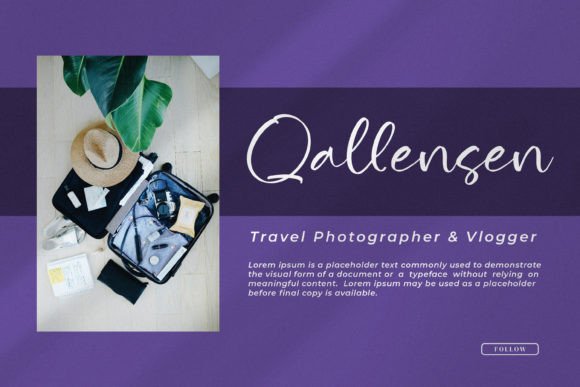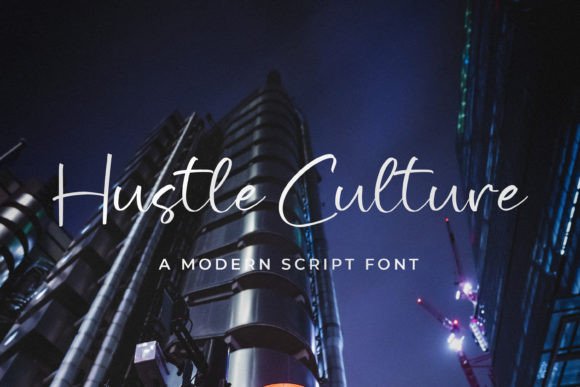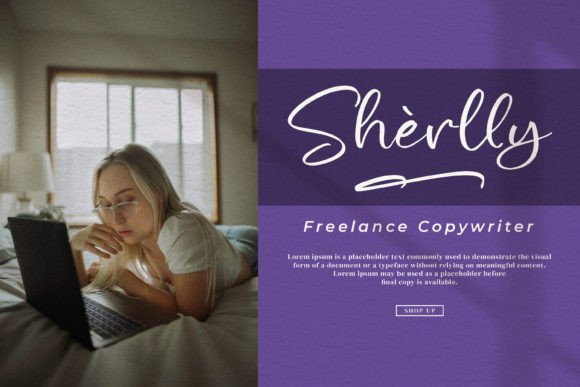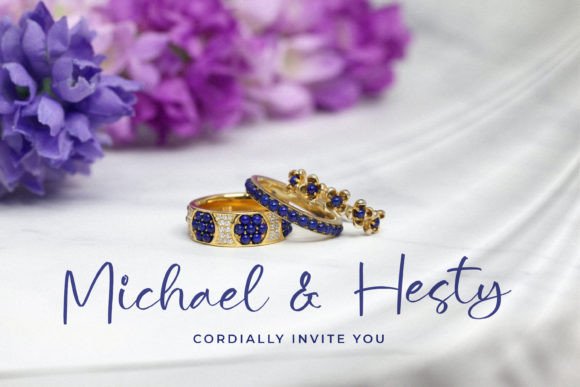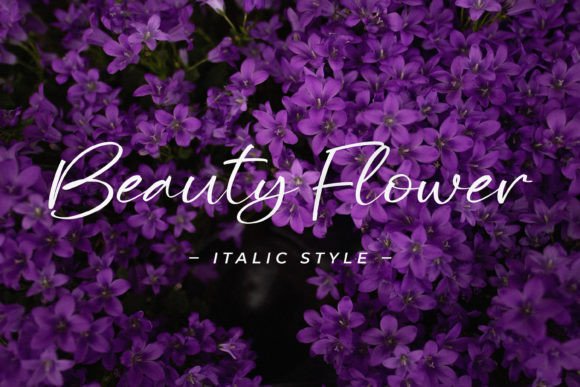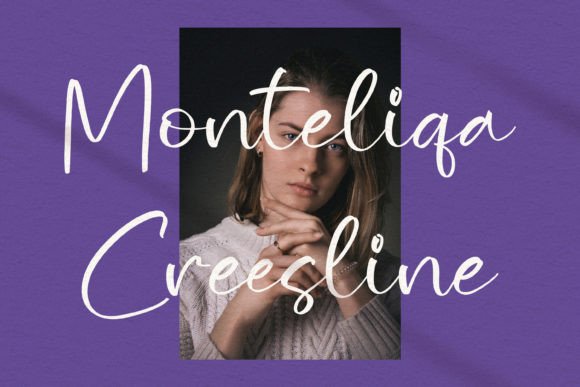
Discover the Magic of Carenbella Font
Have you ever found yourself staring at a blank page, searching for the perfect font to bring your creative vision to life? The moment when everything clicks, and the right words flow effortlessly onto the page, is one of the most exhilarating experiences for designers. It’s the spark that ignites a new project, and Carenbella Font is here to ignite that spark.
Carenbella Font is a meticulously crafted script font, designed to elevate any creation to new heights. Whether you’re working on a romantic wedding invitation, a beautiful book cover, or a stunning social media post, this font has the potential to take your design to the next level. With its intricate details and elegant flair, Carenbella Font is a valuable addition to any designer’s library, waiting to be unleashed and bring your creative ideas to life.
Carenbella Font Key Features
- Font Type: Script, Handwritten
- Font Size: 4 styles available: 600, 700, 800, 900
- Resolution: Optimized for screen display, suitable for digital use
- Unique Characteristics: Distinctive handwritten feel, elegant and refined appearance, perfect for creative and decorative purposes
- Language Support: Latin-based languages, including English, Spanish, French, and many others
Carenbella Font Review
I recently had the chance to work with the Carenbella font, and I must say it’s a unique and interesting addition to any design project. ✨ The font’s cursive style is perfect for creating a sense of elegance and sophistication, making it ideal for weddings, invitations, and other special occasions.
- The Carenbella font is highly customizable, allowing you to adjust the size, color, and spacing to fit your design needs.
- The font’s cursive style is also great for creating a sense of movement and flow, which can be particularly effective in headings and titles.
- Overall, the Carenbella font is a solid choice for designers looking for a unique and eye-catching font.
However, there are some limitations to keep in mind. ⚠️ The font’s cursive style can be difficult to read at small font sizes, and the letterforms can be quite ornate, which may make it challenging to use for body text.
Overall, I would give the Carenbella font 4 out of 5 stars. While it’s not the most versatile font, it’s perfect for specific design projects where a touch of elegance and sophistication is needed.
Tips for Getting the Most Out of Carenbella Font
Use Carenbella Font for creative projects such as invitations, flyers, and brochures.
Combine Carenbella Font with bold and colorful graphics for a unique and eye-catching design.
Experiment with different font sizes and styles to create visual interest and hierarchy in your design.
Alternatives to Carenbella Font
Great Vibes is a modern, elegant script font that is perfect for creating a sense of luxury and sophistication. It is ideal for use in high-end branding, advertising, and packaging design. Compared to Carenbella Font, Great Vibes has a more refined and delicate feel, making it suitable for use in smaller text sizes.
Pacifico is a beautiful, handwritten font that is reminiscent of the ocean. It is perfect for use in beach-themed designs, travel branding, and outdoor advertising. Compared to Carenbella Font, Pacifico has a more relaxed and casual feel, making it suitable for use in casual, everyday designs.
Carolyna Pro is a elegant, modern script font that is perfect for creating a sense of sophistication and luxury. It is ideal for use in high-end branding, advertising, and packaging design. Compared to Carenbella Font, Carolyna Pro has a more refined and delicate feel, making it suitable for use in smaller text sizes.
Alex Brush is a beautiful, handwritten font that is reminiscent of a brush stroke. It is perfect for use in creative, artistic designs, and is ideal for use in branding, advertising, and packaging design. Compared to Carenbella Font, Alex Brush has a more expressive and creative feel, making it suitable for use in designs that require a more personal touch.
Q: What is the recommended font size for optimal readability with the Carenbella Font?
For optimal readability, we recommend using the Carenbella Font at a minimum size of 18 points (or 12 points for body text) in print designs and 24 points (or 16 points for body text) in digital designs. This will ensure that the font remains legible and visually appealing, even at larger sizes.